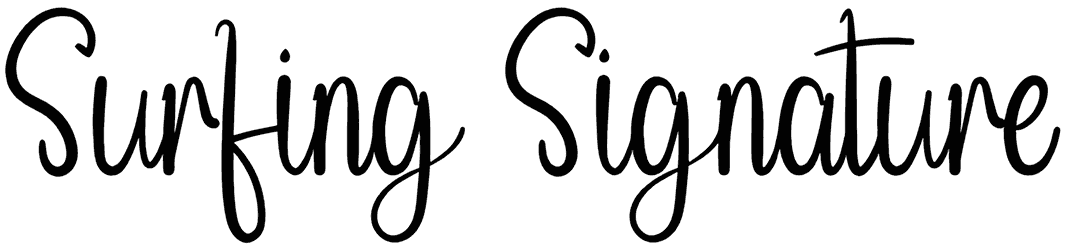
Surfing Signature Font
Surfing Signature is a script font inspired by personal styles and cursive, which can add credibility to your writing with a beautiful and rich personality.
This handwritten font is a versatile option for designers who want to simultaneously do projects like logo design, packaging, book cover, and apparel design. The thin lines and clean personality of Surfing Signature can play a very influential role in distinguishing your brand from others.